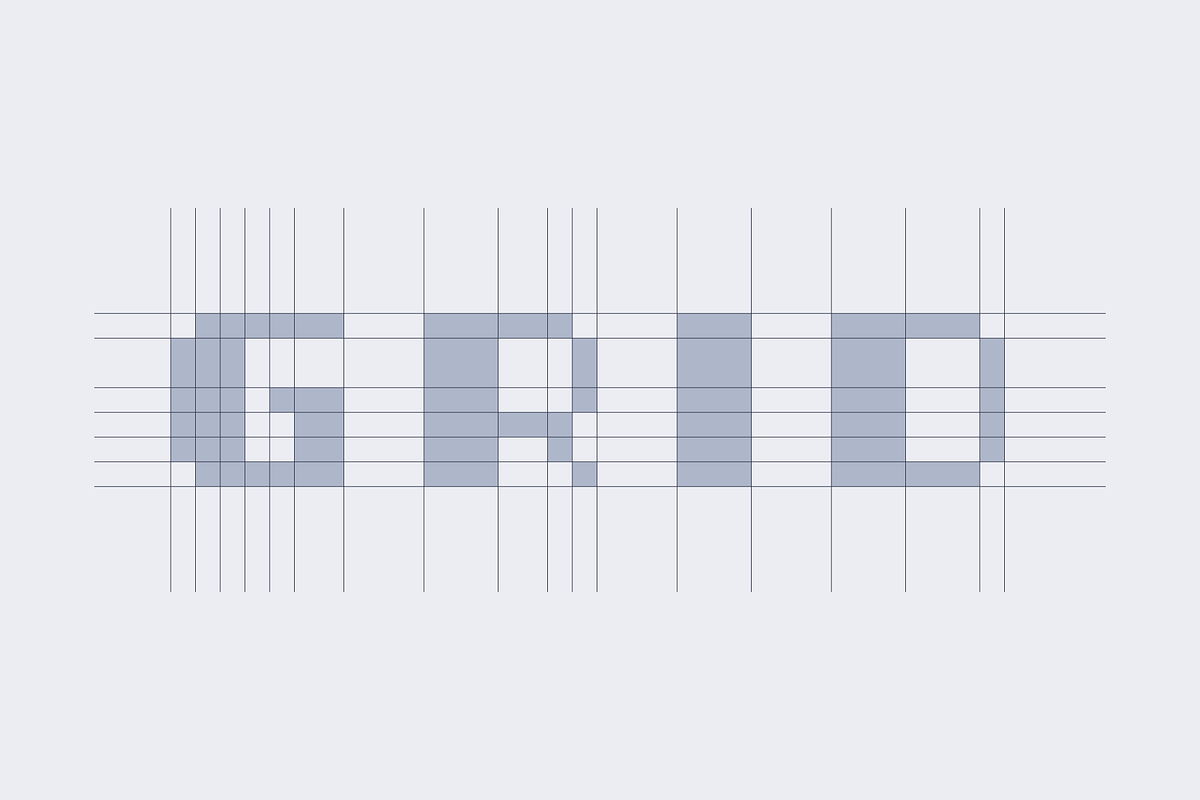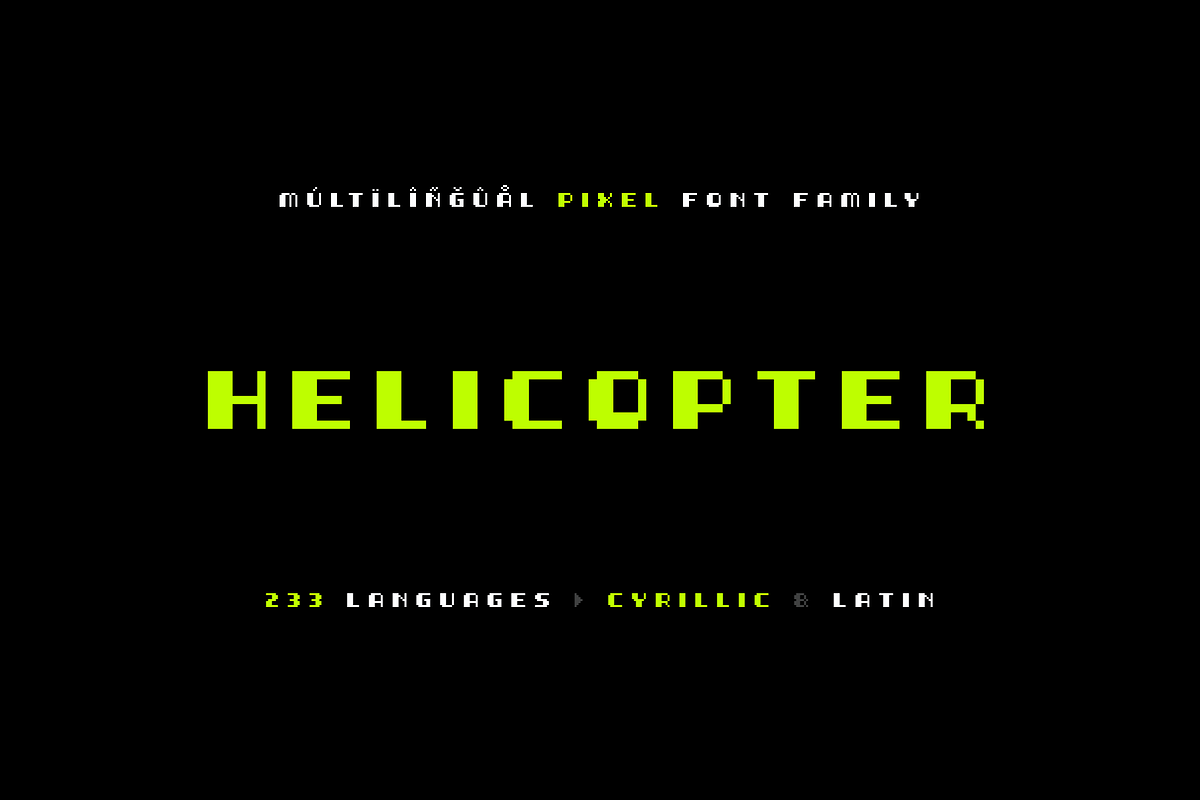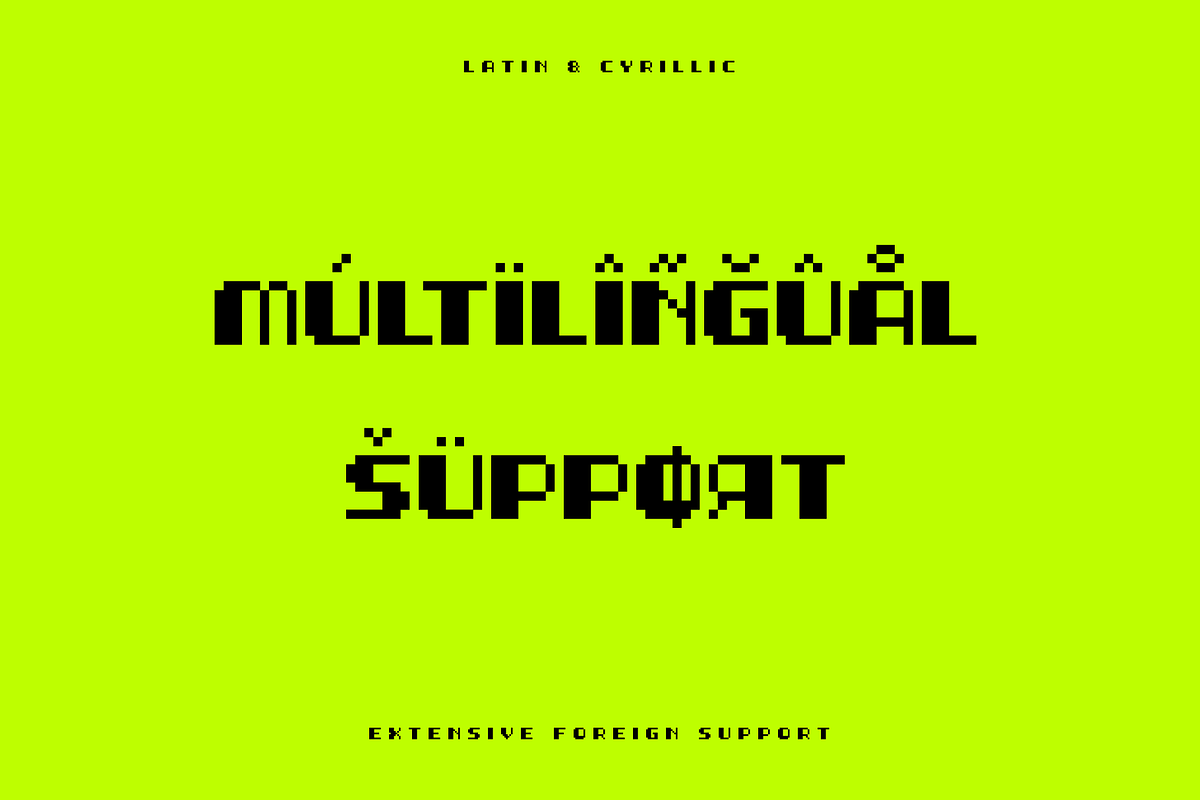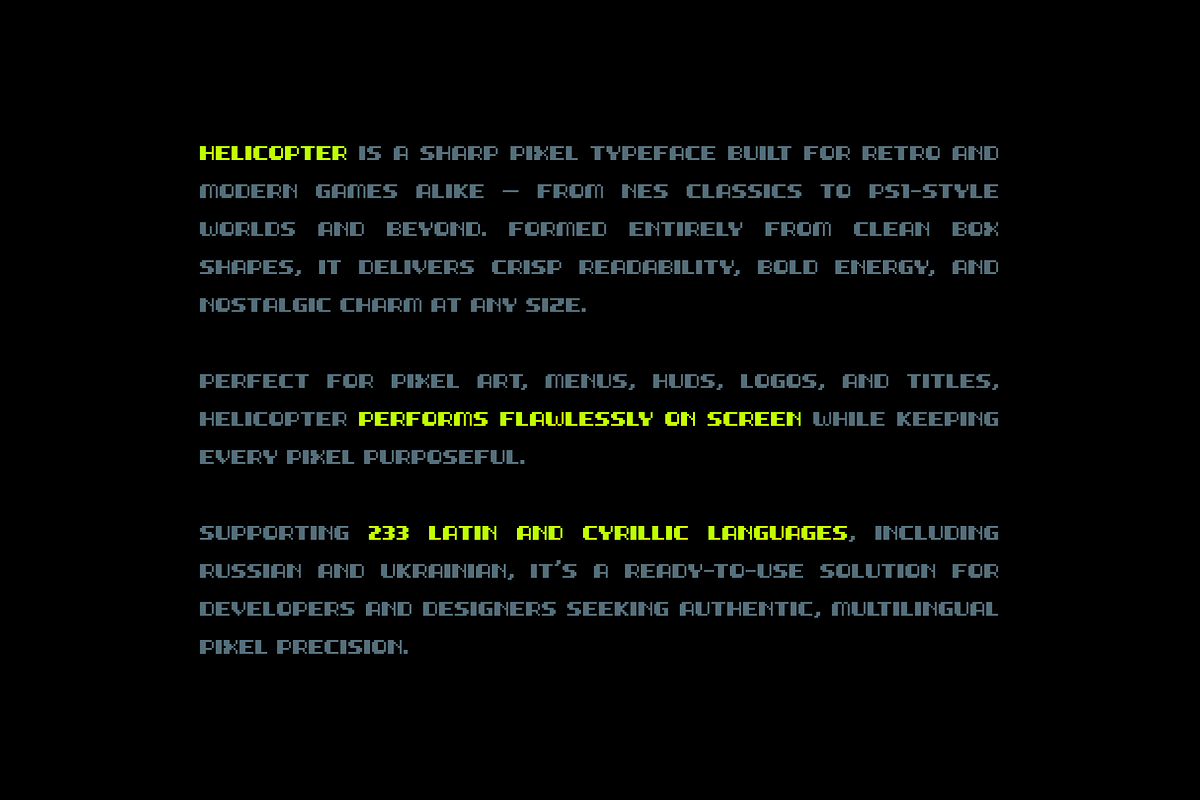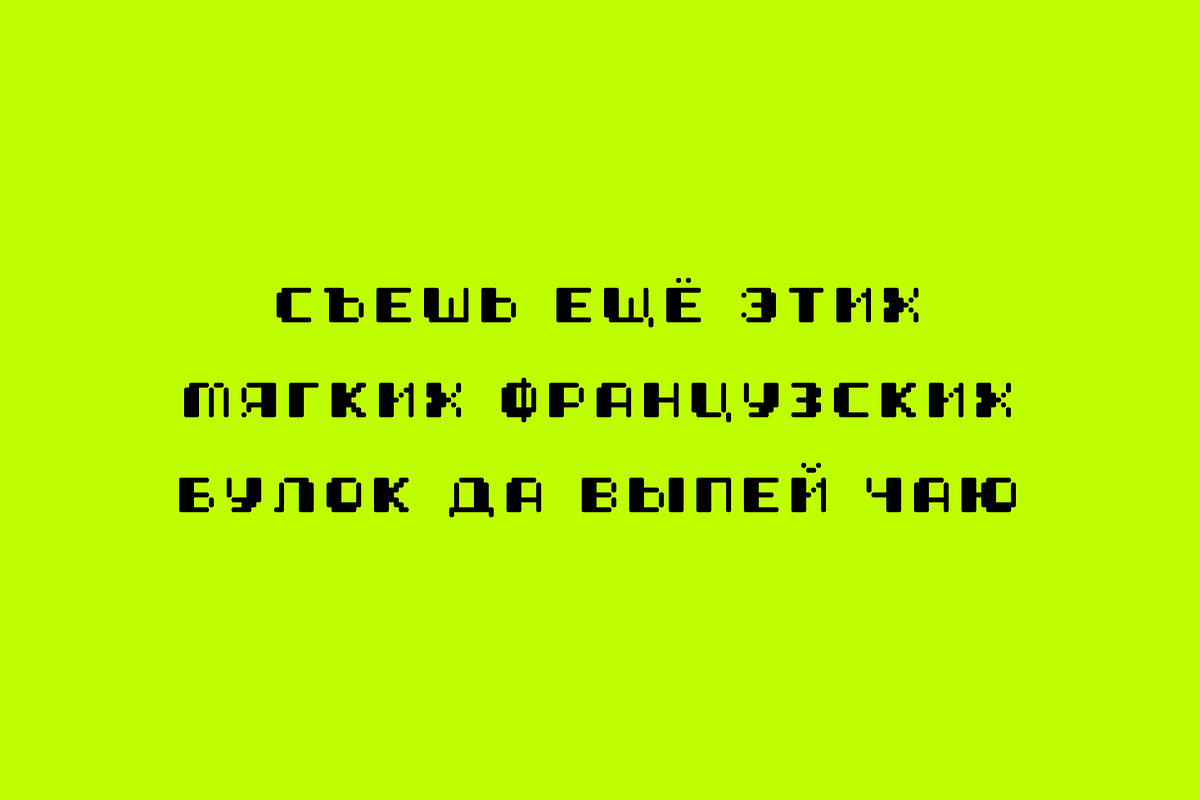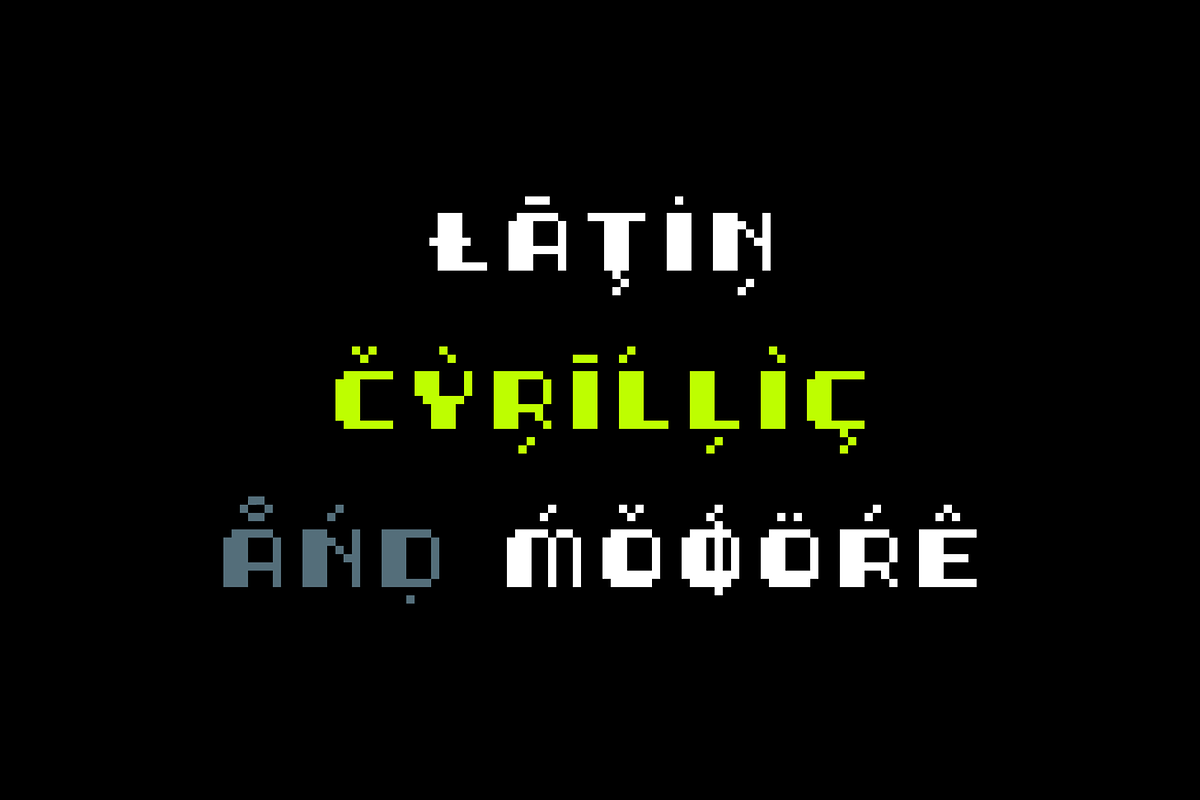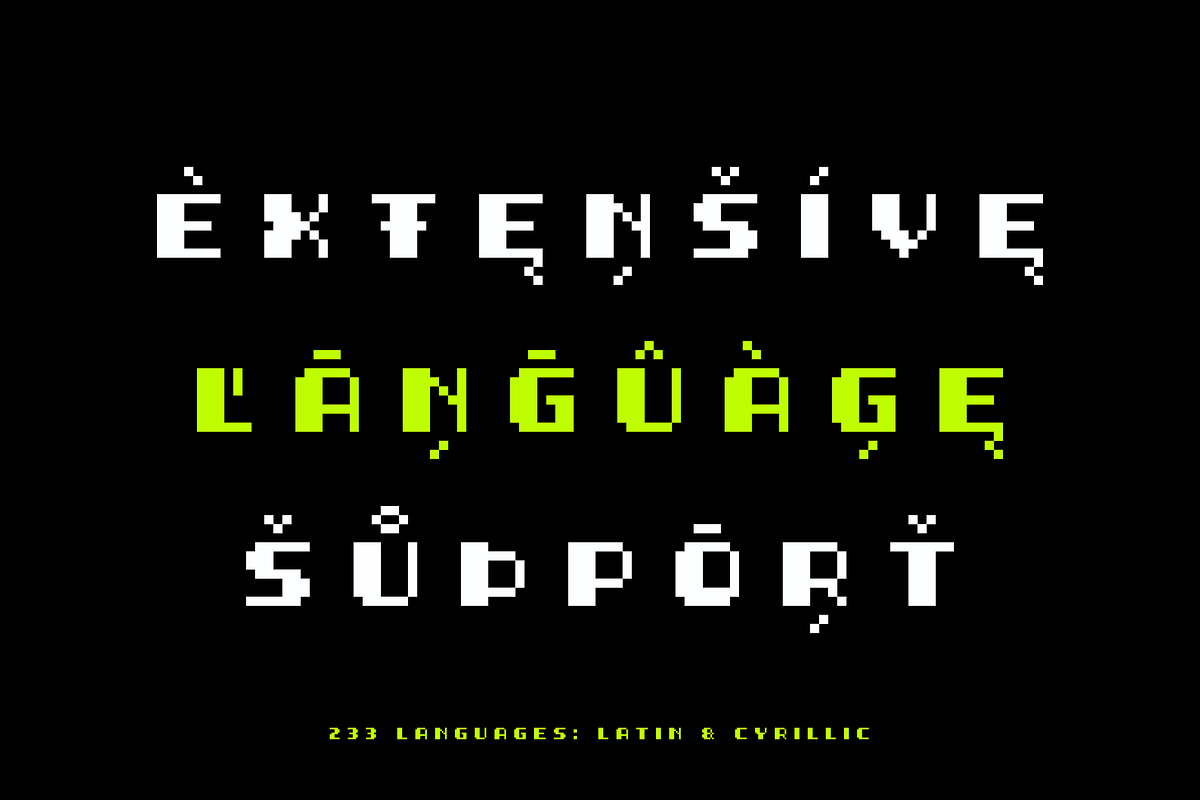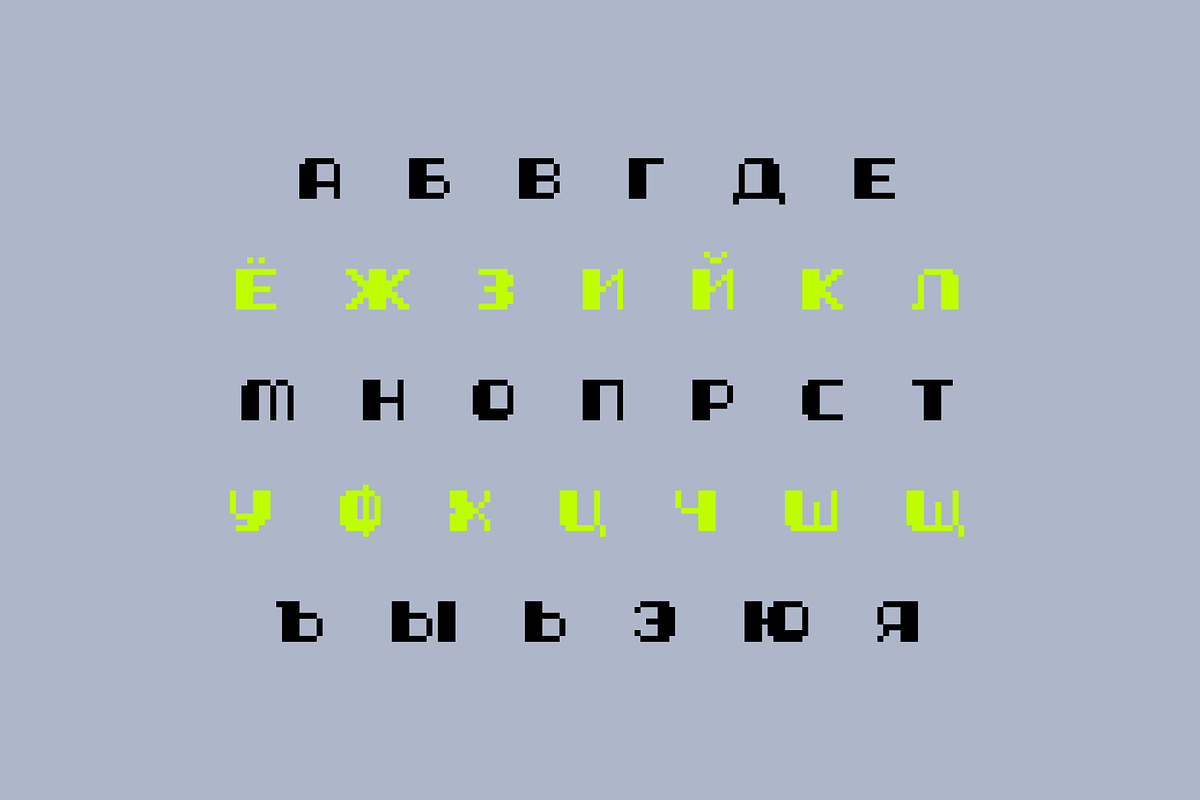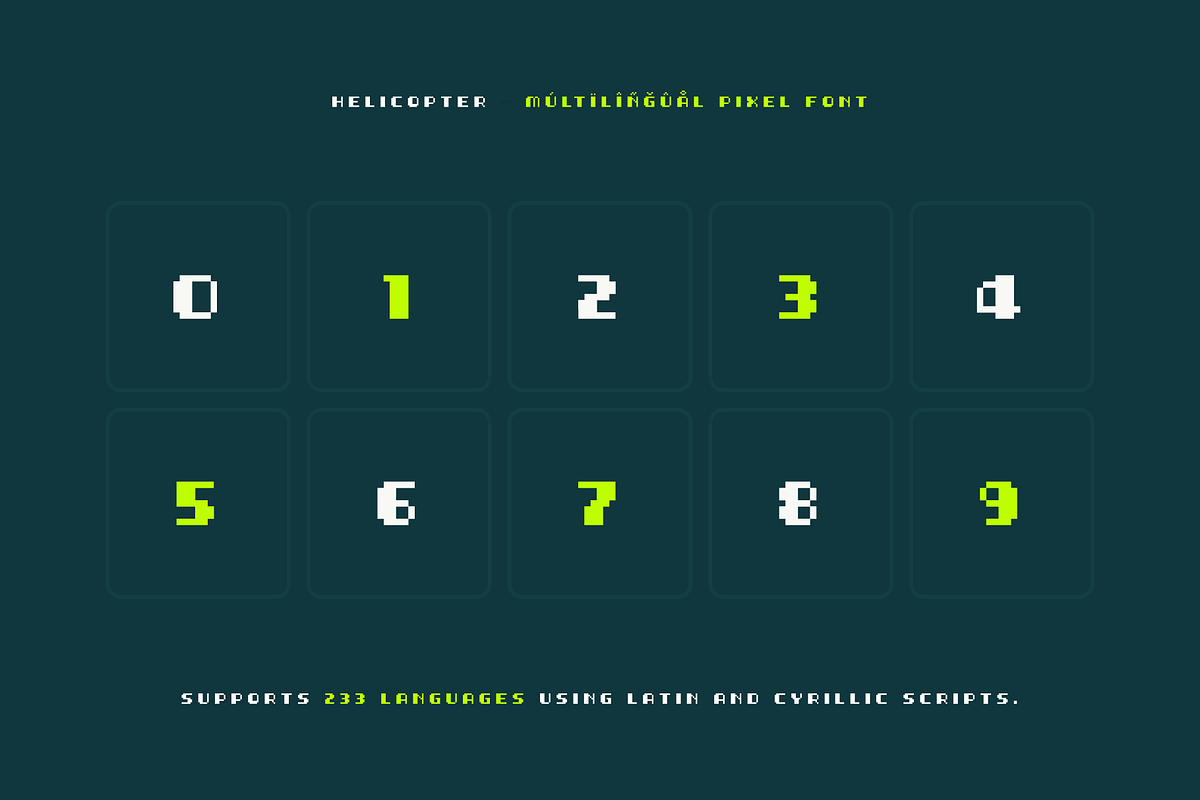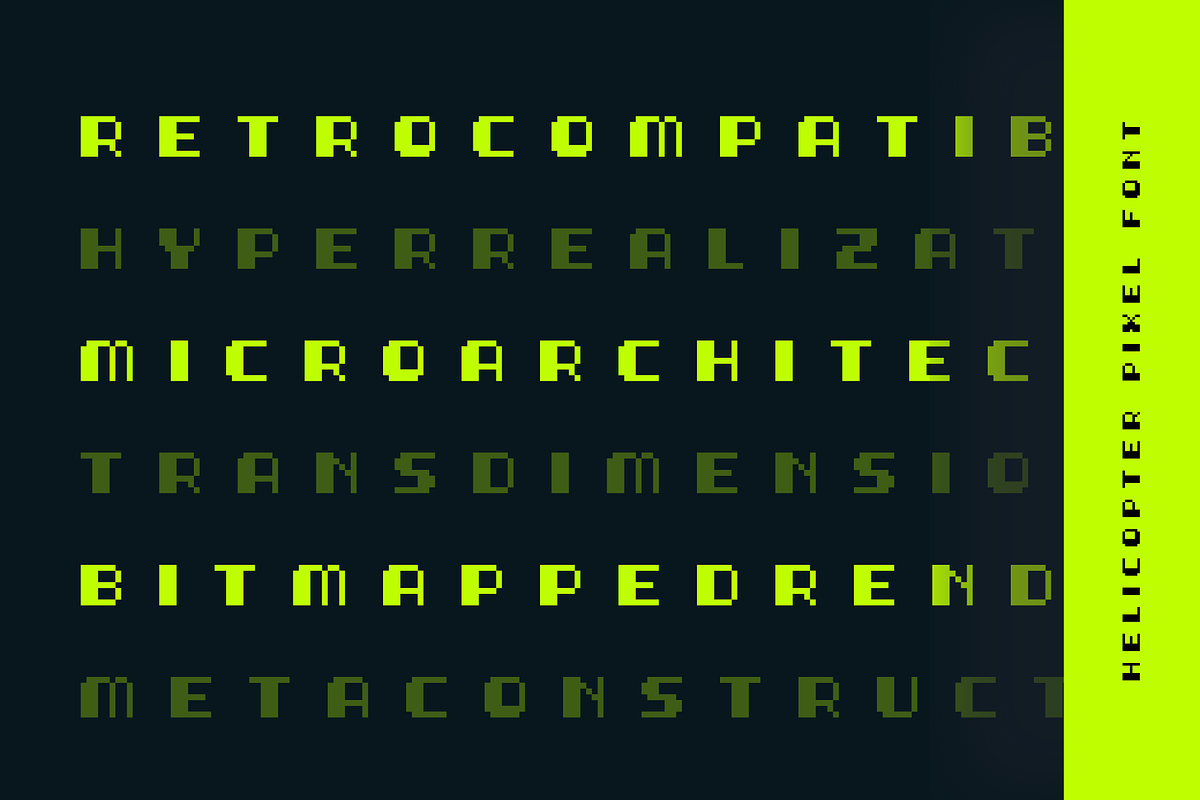
Helicopter – Pixel Display Typeface
✨ Helicopter – Pixel Display Typeface for Games
Helicopter is a sharp, grid-built pixel typeface designed for clarity, precision, and unmistakable retro energy. Inspired by the aesthetics of 8-bit, 16-bit, and early 3D gaming, it brings the crisp charm of classic consoles into the modern era.
Every glyph is drawn with pixel-perfect geometry — a clean, modular structure that delivers both nostalgic character and contemporary usability.
From splash screens to dialogue boxes, HUDs, menus, and in-game interfaces, Helicopter keeps your text clear, stylish, and packed with retro attitude. The family includes 8 styles, such as Rounded, Shadow, and Inline, giving you flexible options for different moods and scenes.
Supporting 233 languages in Latin and Cyrillic, including Russian and Ukrainian, Helicopter is built for global gaming communities. Whether you’re crafting a throwback platformer, an indie RPG, or a futuristic UI, Helicopter gives your typography a consistent rhythm and a distinct pixel personality.
🌟 Why Choose Helicopter
🎮 Game-Ready Design – Built on a pixel grid for perfect alignment and crisp screen rendering.
🕹️ Authentic Retro Aesthetic – Ideal for NES, SNES, PS1, and indie-style games.
🌍 Global Communication – Supports 123 languages across Latin and Cyrillic scripts.
💾 Optimized for Screen – Clean box forms maintain clarity from small UI text to large titles.
🧩 Creative Flexibility – Perfect for game logos, HUDs, menus, pixel art captions, and retro branding.
🌍 Multilingual Support (233 Languages)
Helicopter includes an extensive range of Latin and Cyrillic languages, ensuring your game can communicate across global markets — from English, French, and Turkish to Russian and Ukrainian.